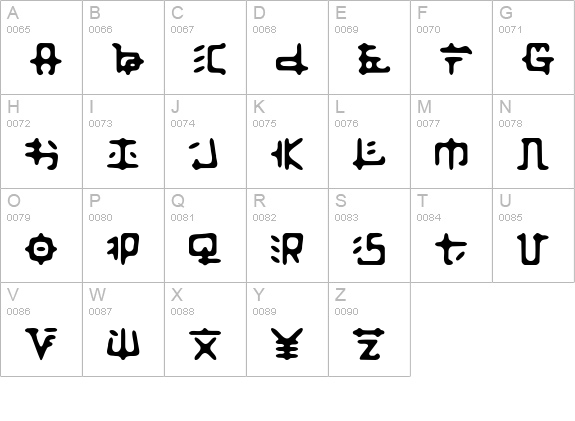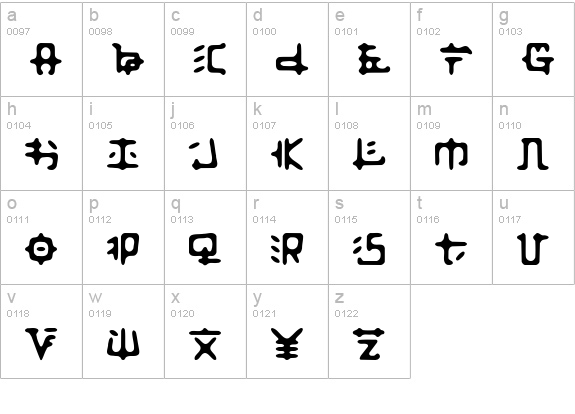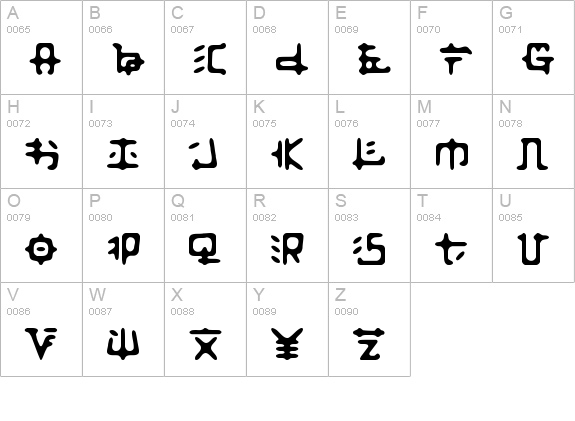
Zaibatsu Font Details
Zaibatsu font is a modern and stylish typeface that exudes sophistication and elegance. Its clean lines and unique design make it perfect for a wide range of creative projects, from branding to editorial design. The sleek and futuristic look of Zaibatsu font will add a touch of class to any design. What's even better is that Zaibatsu font is available for free download at FontsMarket.com. This means you can easily access this high-quality font without breaking the bank. Whether you're a professional designer or a hobbyist looking to spice up your projects, Zaibatsu font is a fantastic choice that won't cost you a thing. Download it today and elevate your designs with this stunning typeface.